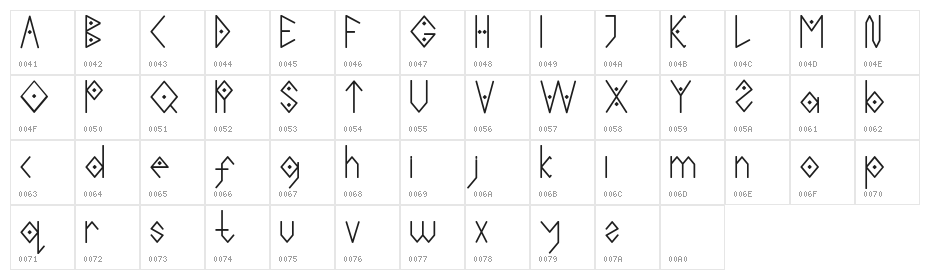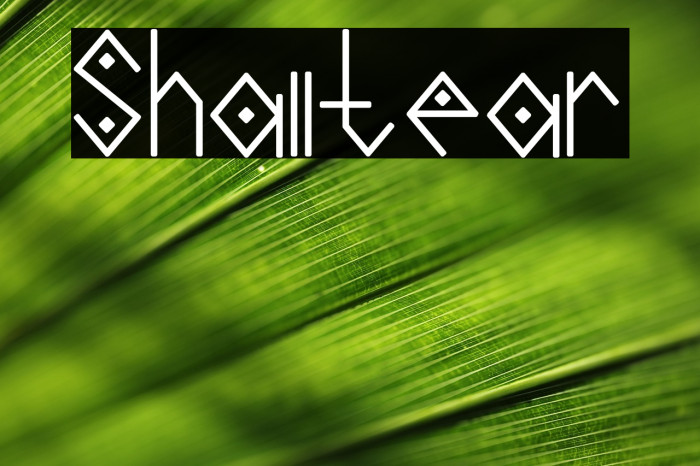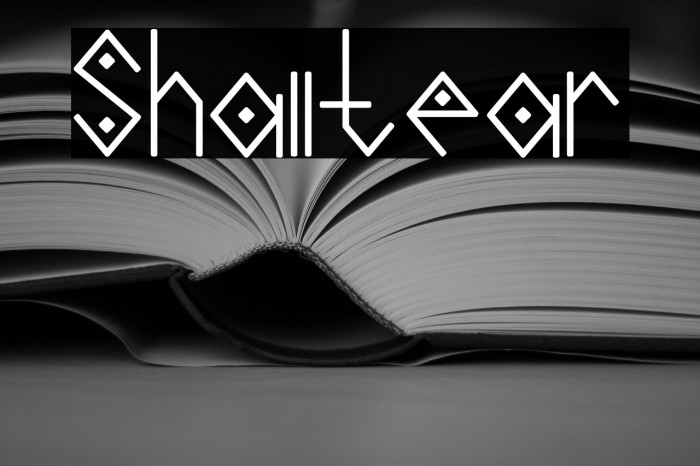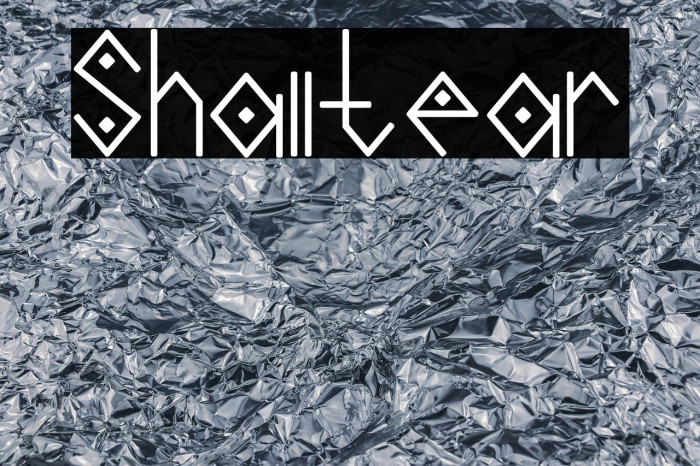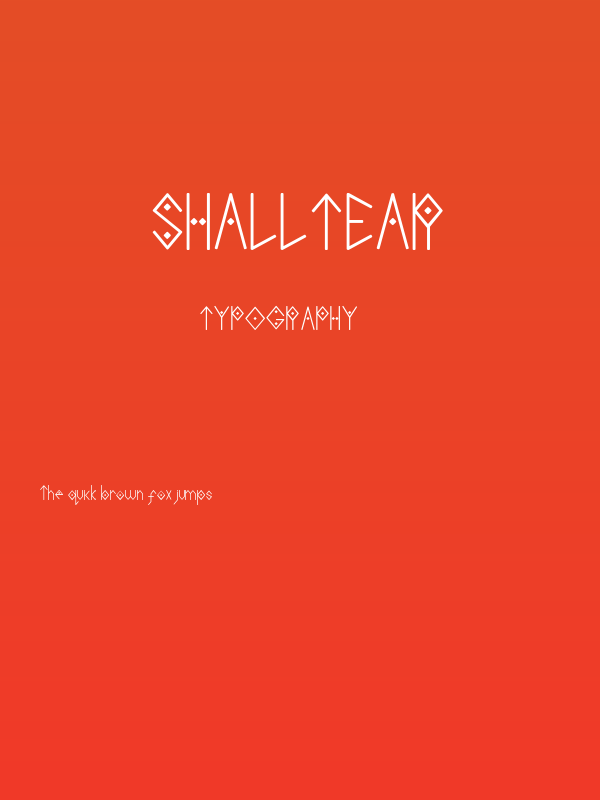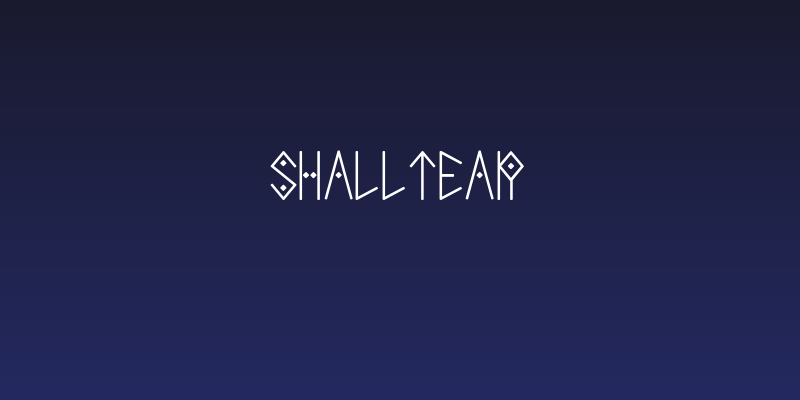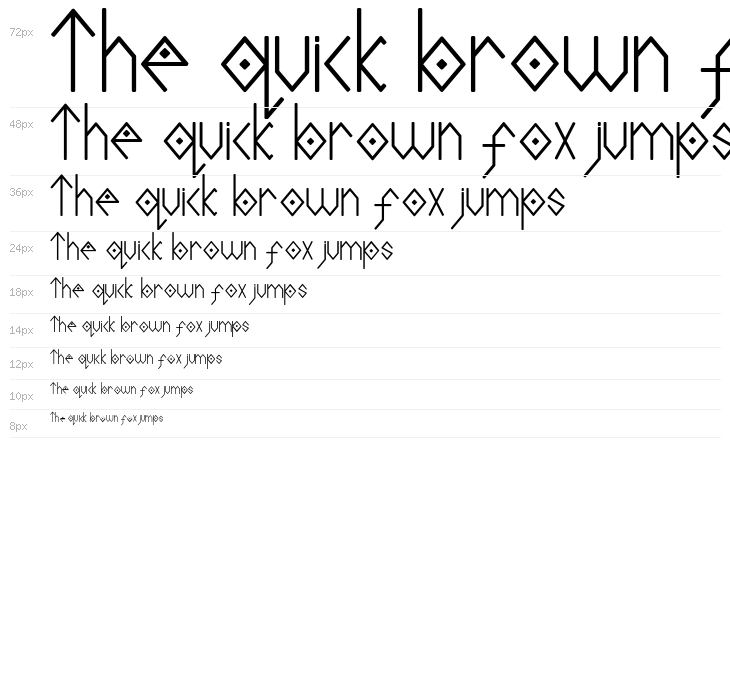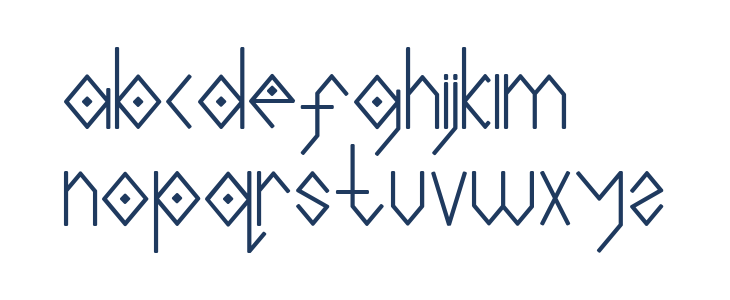
Shalltear Font
Shalltear Description
This font features a unique, geometric style with angular lines and diamond-shaped accents within the characters. The uppercase and lowercase letters maintain a consistent design, emphasizing symmetry and sharp edges. The font's distinct appearance is reminiscent of ancient runes or tribal patterns, making it stand out for its decorative elements. The numerals and special characters follow the same stylistic approach, ensuring uniformity across all glyphs. This font is ideal for projects that require a bold, artistic touch, such as fantasy-themed designs or cultural motifs.